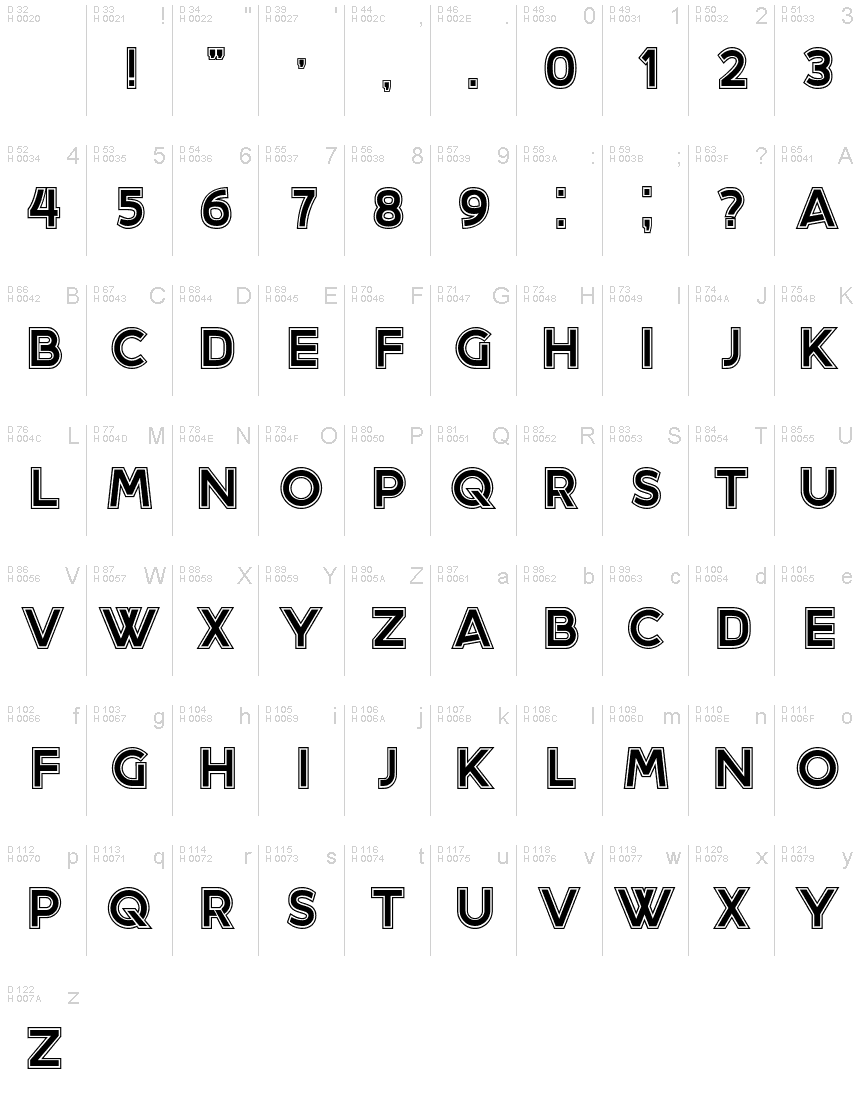
Juniors Regular
Juniors, a sans serif font designed by Vladimir Nikolic, captures the essence of college style. With its clean lines and modern simplicity, this font is versatile and suitable for a wide range of projects.
Its bold font type adds impact to posters, banners, and headlines, while the regular font style lends itself well to body text in brochures or websites. Juniors is the perfect choice for all things collegiate – from sports team logos to student club flyers. Let this font evoke the spirit of youth and academia in your designs.